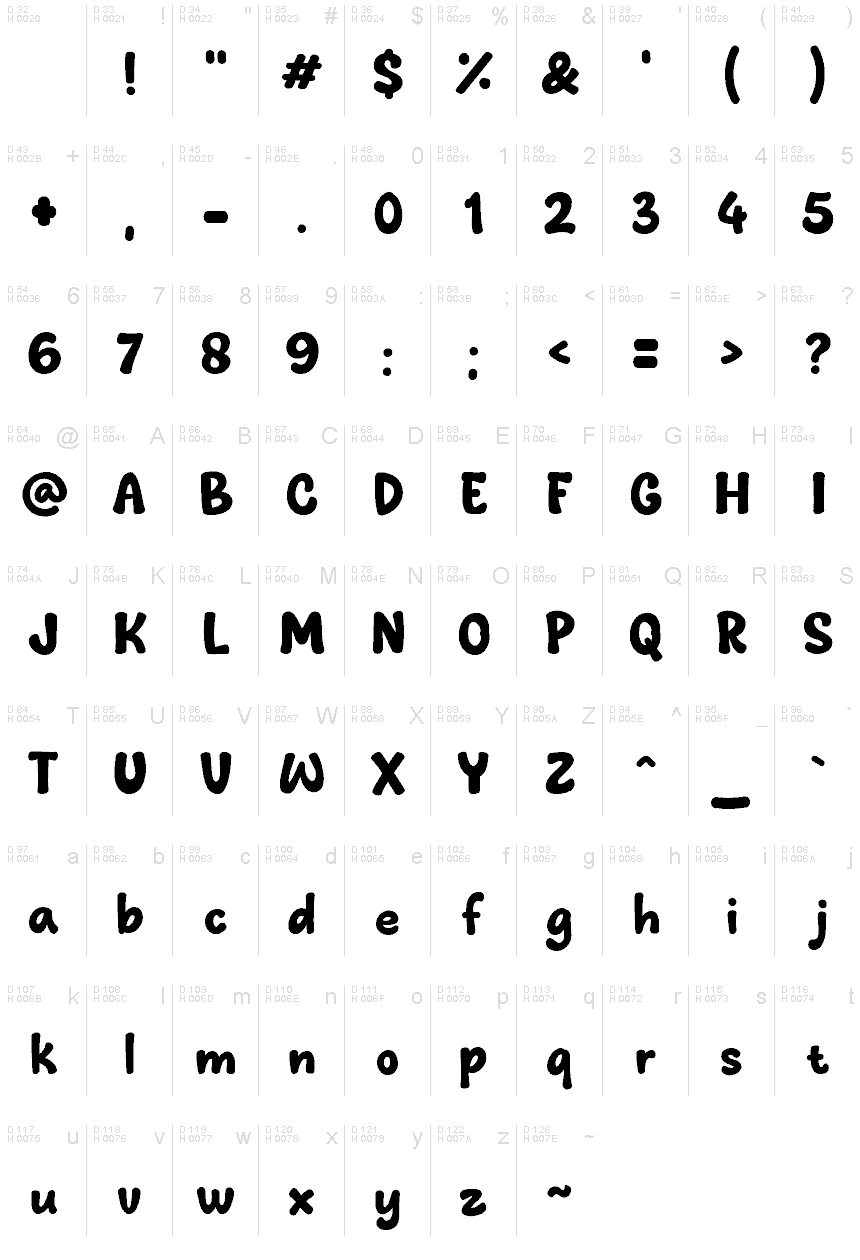
Wonderly
Wonderly font by MJType is a friendly, approachable, casual display font with cartoon notes that look well on comic book covers. Characters are rounded and elaborated in a gentle way for an overall contemporary touch.
Explore this free display font in use on website headers, children’s applications interface elements, video games settings labels and functions, greeting cards and posters etc.